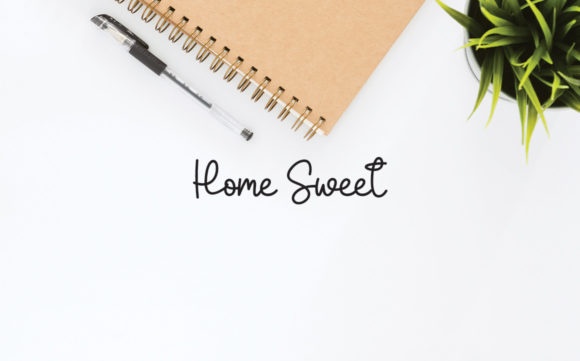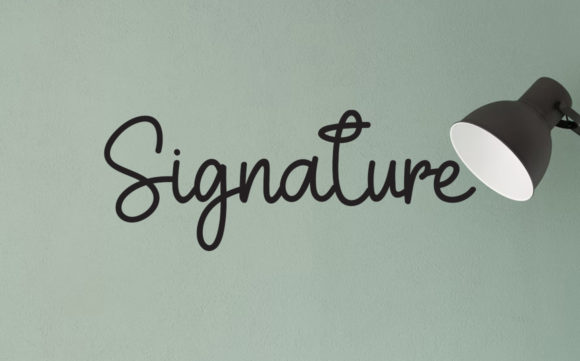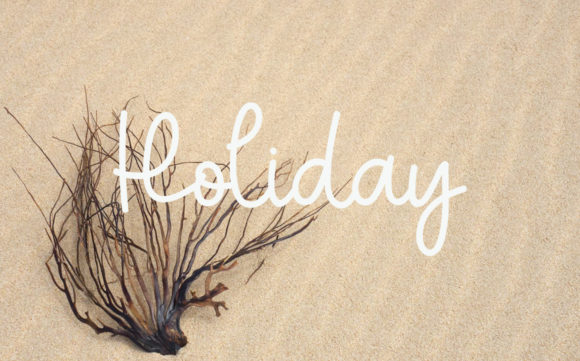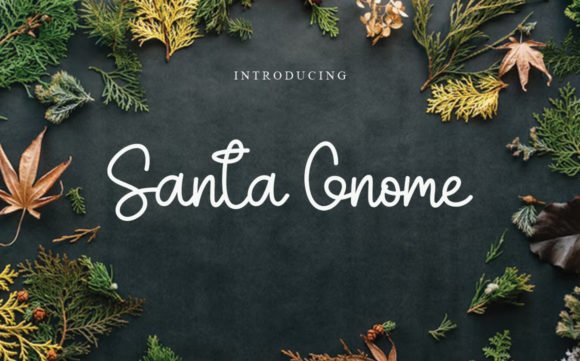
Introduction to Santa Gnome Font
Santa Gnome is a lovely script font featuring charming, playful characters that seem to dance along the baseline.
Add this font to your most creative ideas, and notice how it makes them stand out .
Key Features of Santa Gnome Font
Why Choose Santa Gnome Font?
Santa Gnome Font offers exceptional quality and versatility, making it a valuable addition to your design toolkit. Whether you’re creating for personal projects or commercial use, Santa Gnome Font delivers professional results.